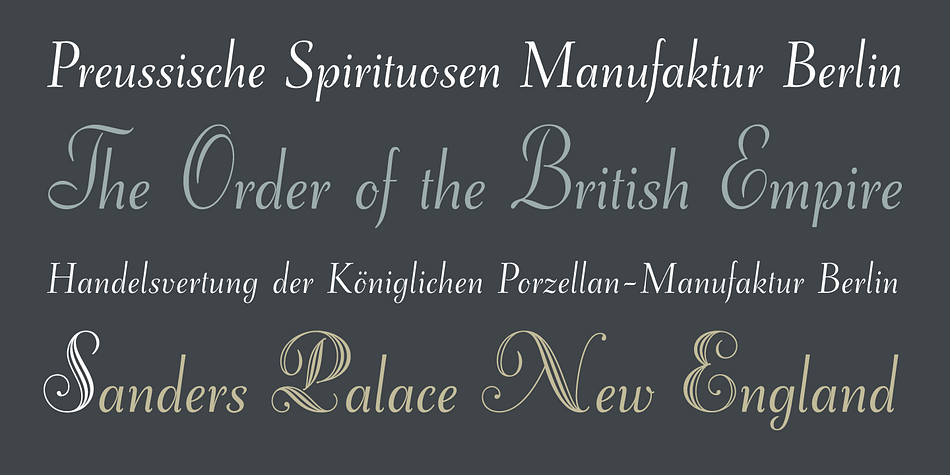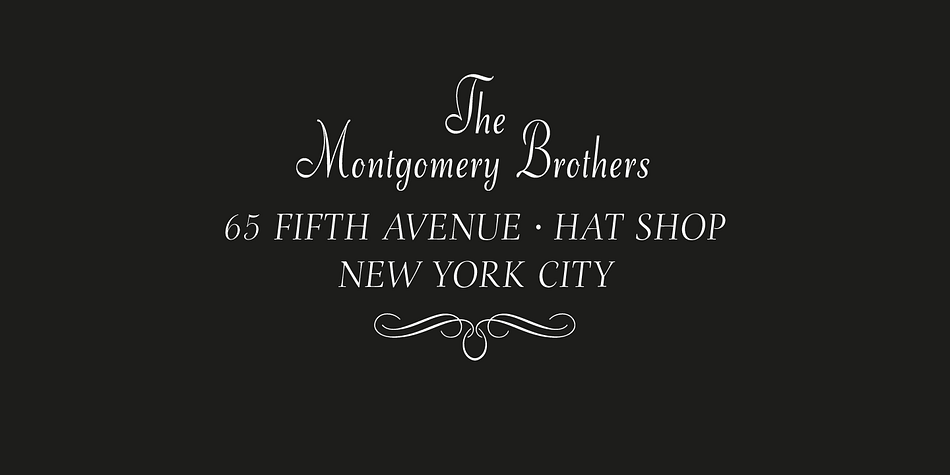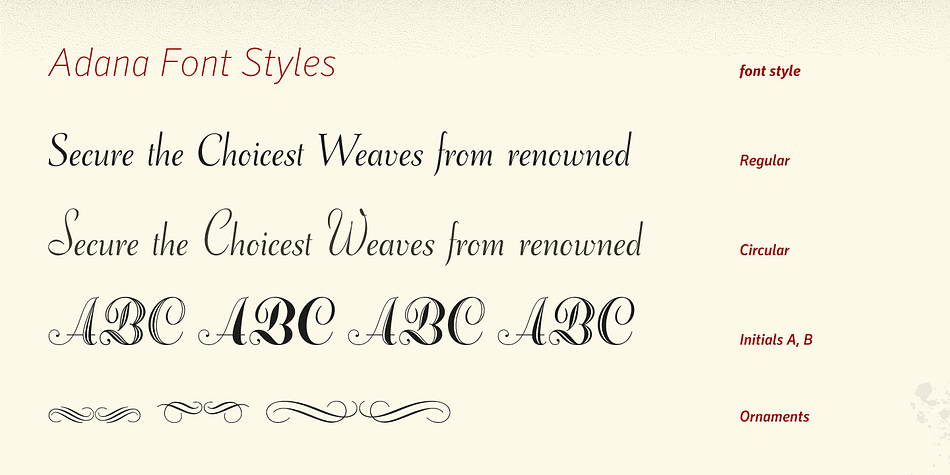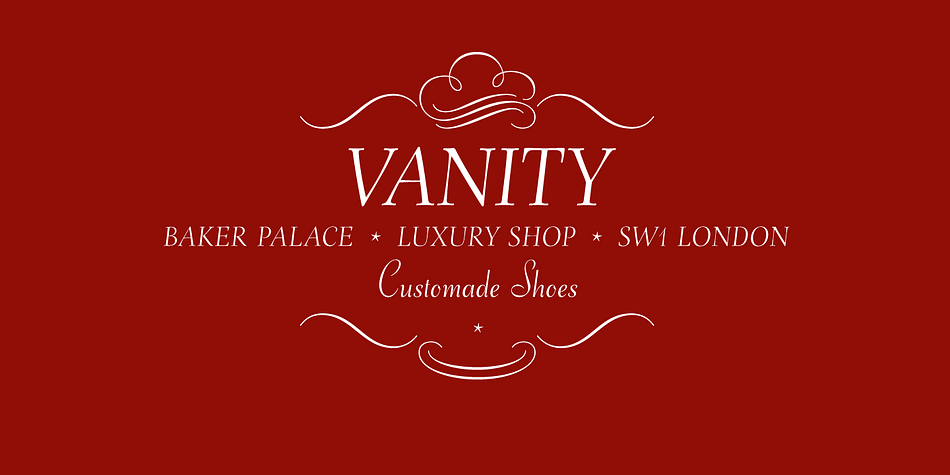
Designed by Andreas Seidel and Wilhelm Berg, Adana is a multiple classification font family. This typeface has five styles and was published by Astype.
The roots of the Adana Circular & Initials typefaces going back to the year 1930, to the Berlin-based German graphic designer Wilhelm Berg. It’s his answer to Lucian Bernhards Schönschrift.